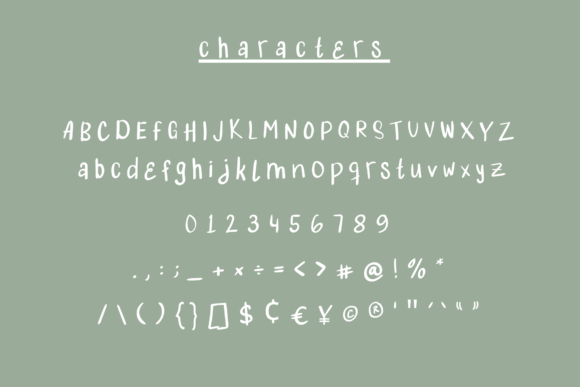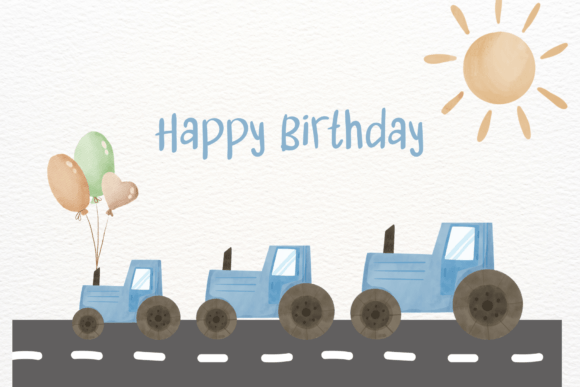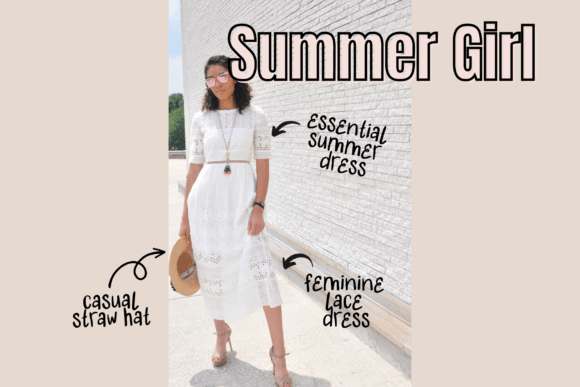
Handwritten Font
Handwritten is a messy handwritten font perfect for all kinds of creative projects. Use it for stickers, quotes, greeting cards, tea towels, apparel, pillows, mugs, toys, posters, baby clothing, picture books and so much more…basically, anything that requires a quirky handwritten look!